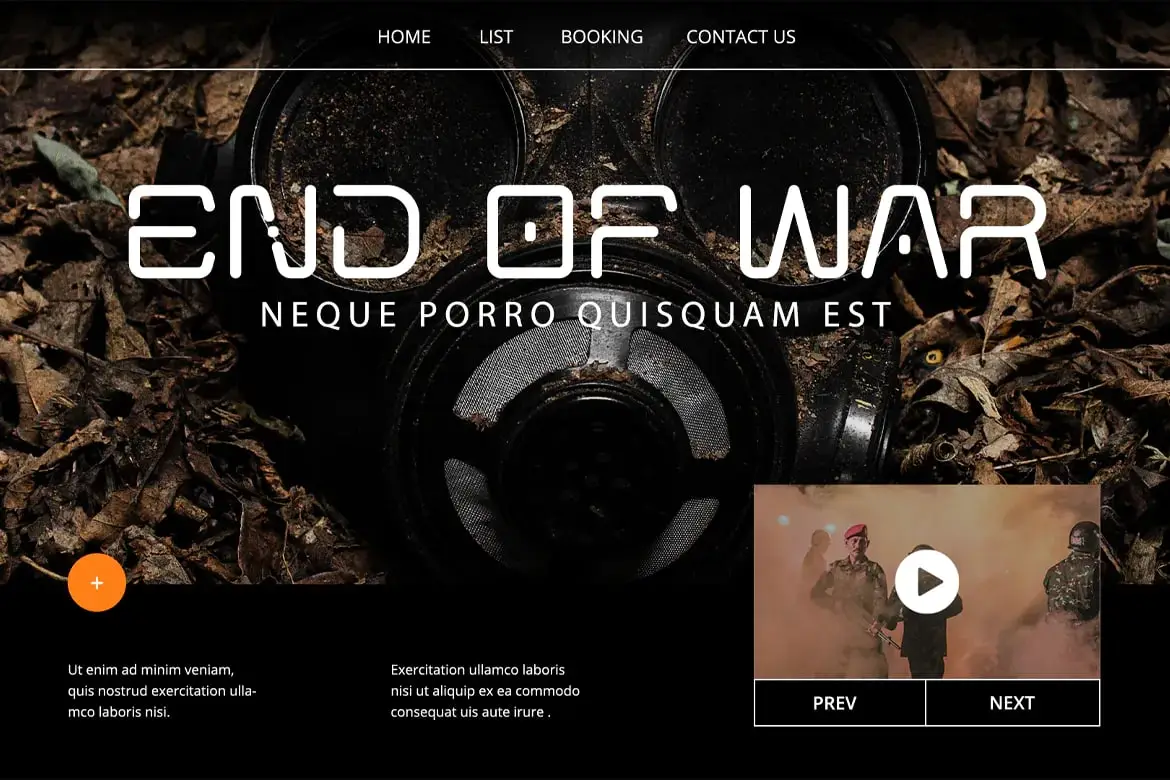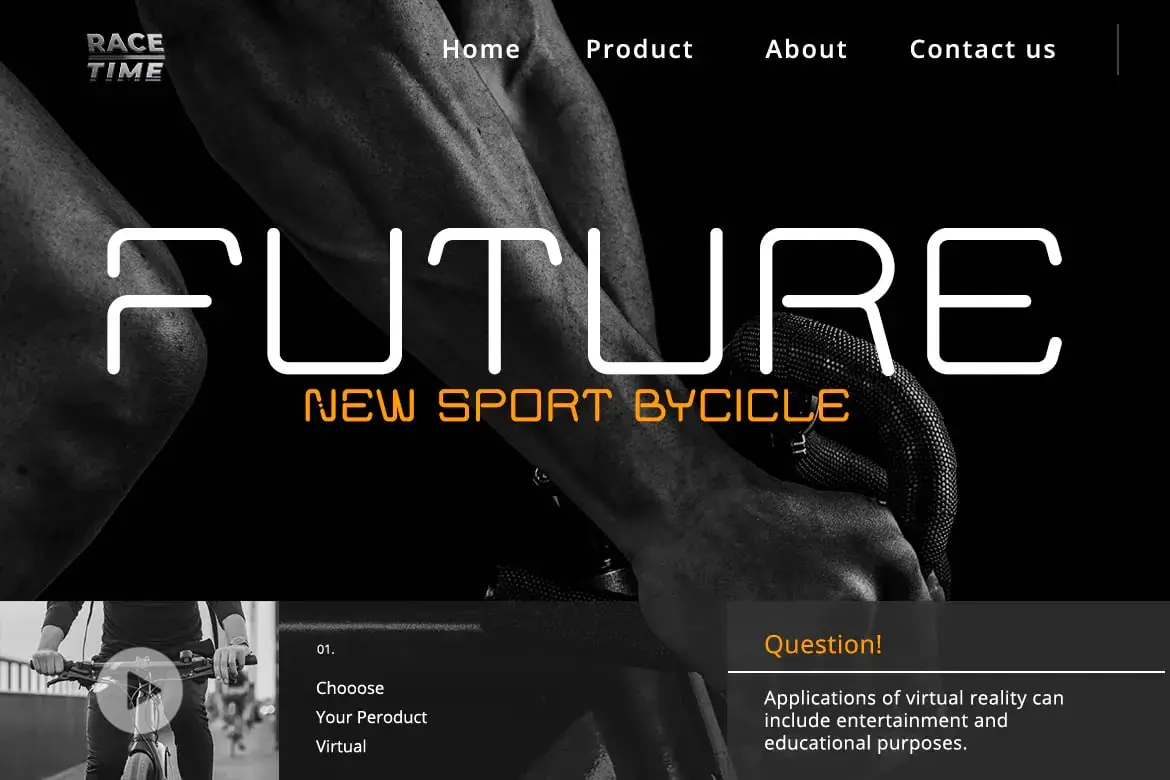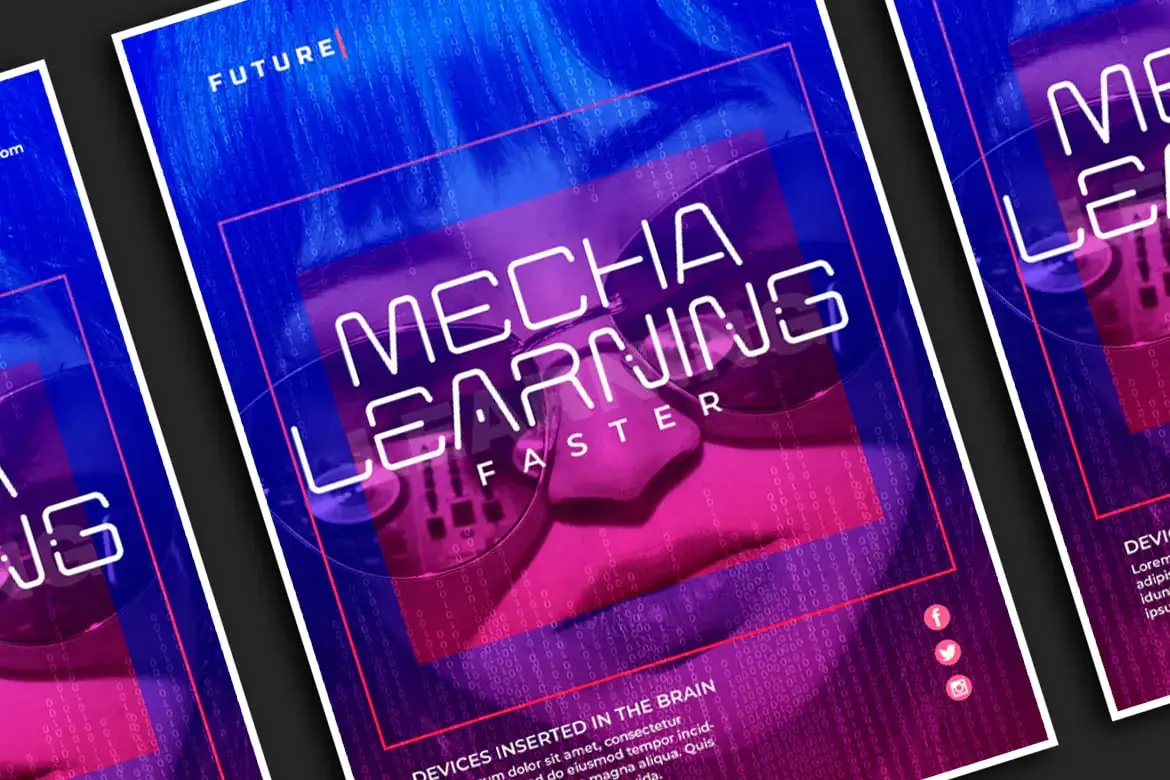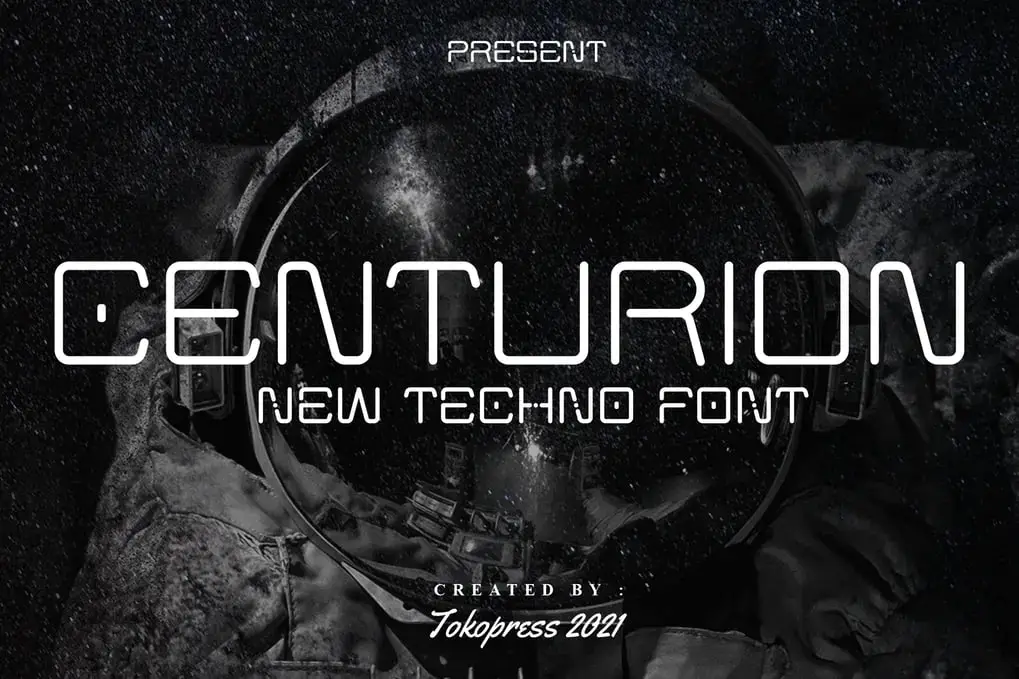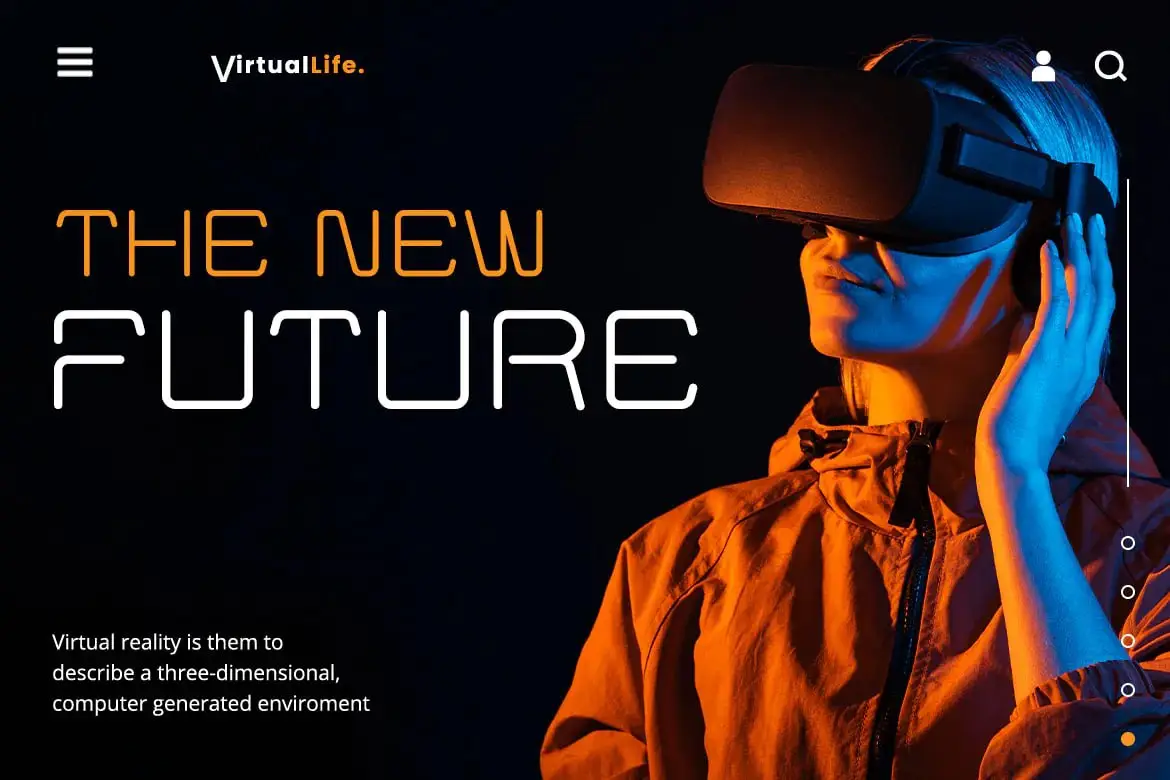
Tokopress Centurion Futuristic Font
Introducing the Tokopress Centurion Futuristic Font, a striking typeface designed to bring a modern edge to your projects. This font features a sleek, geometric style that captures the essence of futuristic design, making it ideal for branding, logos, and digital media.
• Unique geometric design
• Perfect for tech-oriented branding and promotional materials
• Ideal for UI design and digital interfaces
• Great for print projects, including posters and flyers